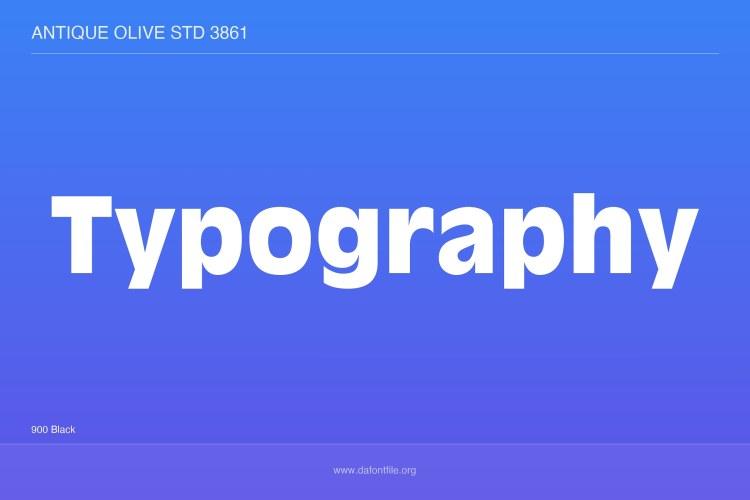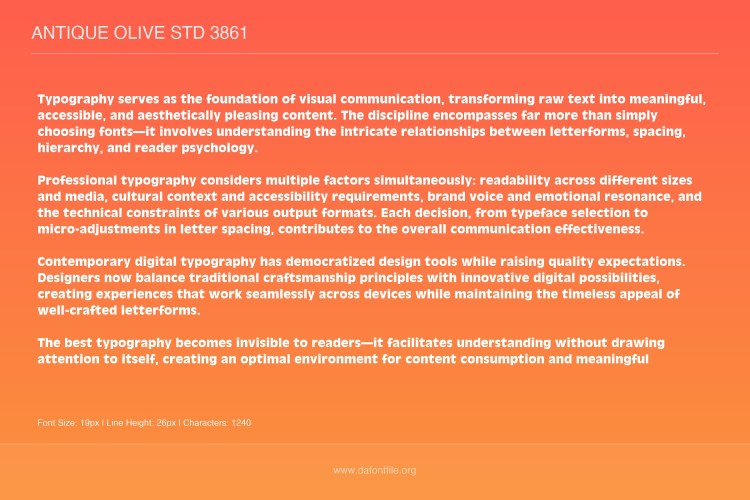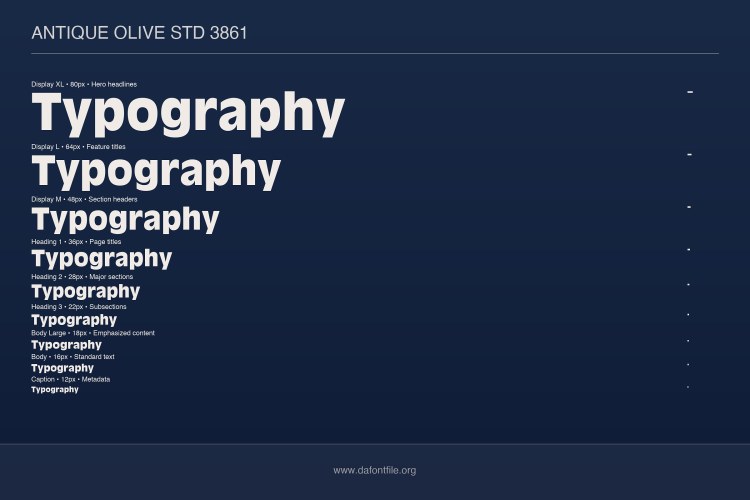
Antique Olive Std Font Family
Antique Olive Std is a bold sans serif font with soft curves and a strong look. First designed in the 1960s, it gives logos, posters, and layouts a warm style. Designers choose it to create modern work that still feels timeless and easy to read.
Where Antique Olive Std Font Family works best
Antique Olive Std Font Family stays legible at small sizes, which makes it a strong choice for navigation, buttons and dashboards in web design and app interfaces.
Clean sans serifs like Antique Olive Std Font Family are the default language of SaaS, fintech and product branding.
What is Antique Olive Std Font Family good for?
Antique Olive Std Font Family is a Sans Serif Fonts typeface tagged Bold, Classic, Modern, Retro. It works well for headlines, logos, posters, social media graphics and branding projects that need a distinctive sans serif fonts look.